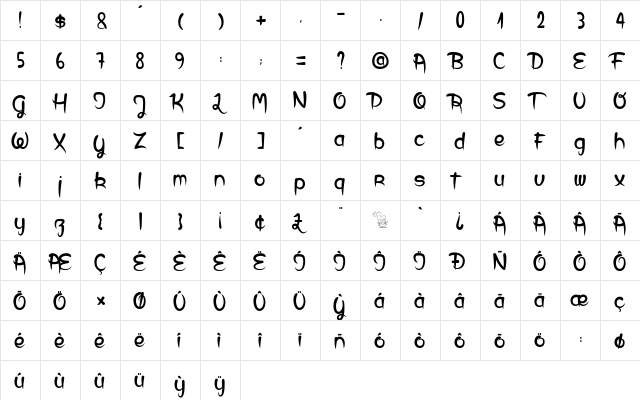
Dust & Blast Regular
| Foundry | dcoxy Medina Gregory |
| Designer | dcoxy Medina Gregory |
Design Context for Dust & Blast Typeface
Dust & Blast is a composed and adaptable typeface that performs quietly and consistently across a wide range of design contexts.